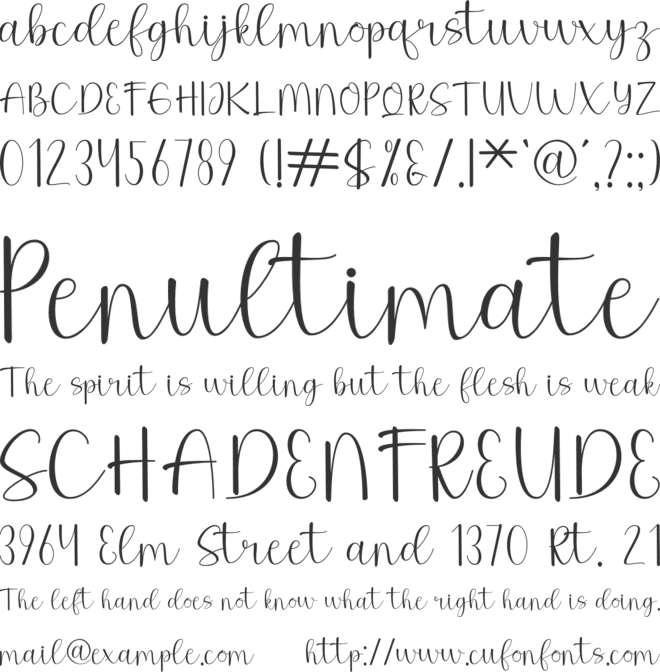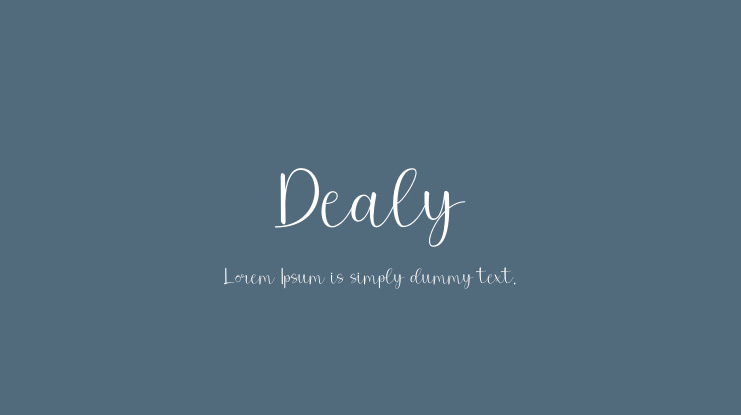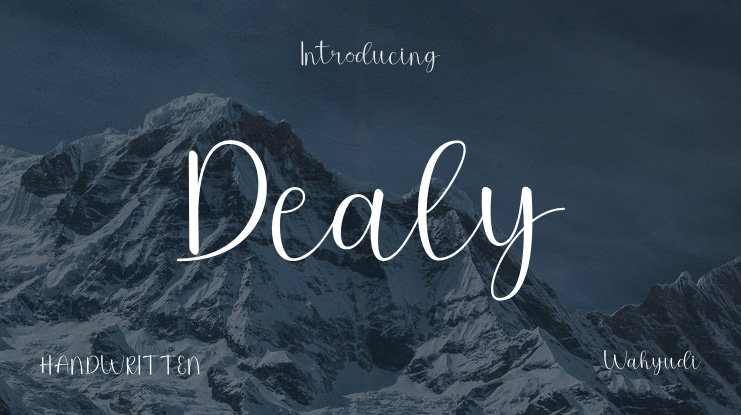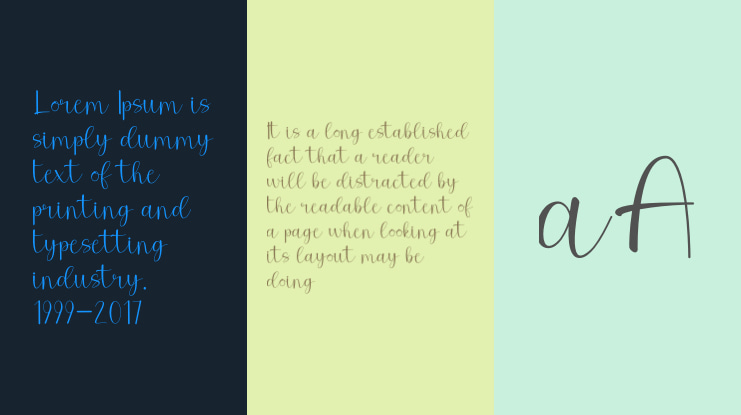
Dealy Font
Dealy is a stylish and incredibly elegant handwritten font. It looks stunning on a wide range of designs, including wedding invitations, thank you cards, quotes, greeting cards, logos, and business cards, adding a beautiful handwritten touch to each project. This font is PUA encoded, allowing you to easily access all the glyphs and alternates.